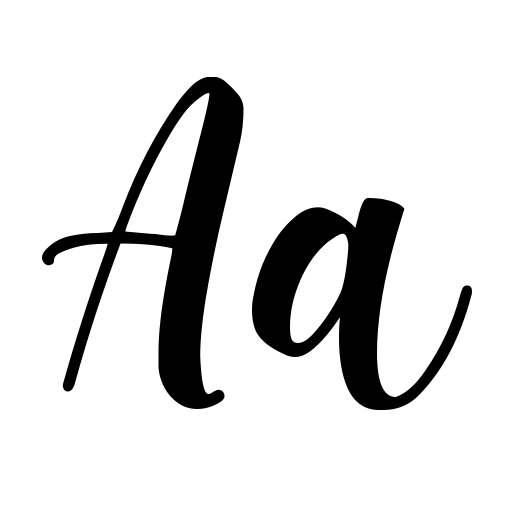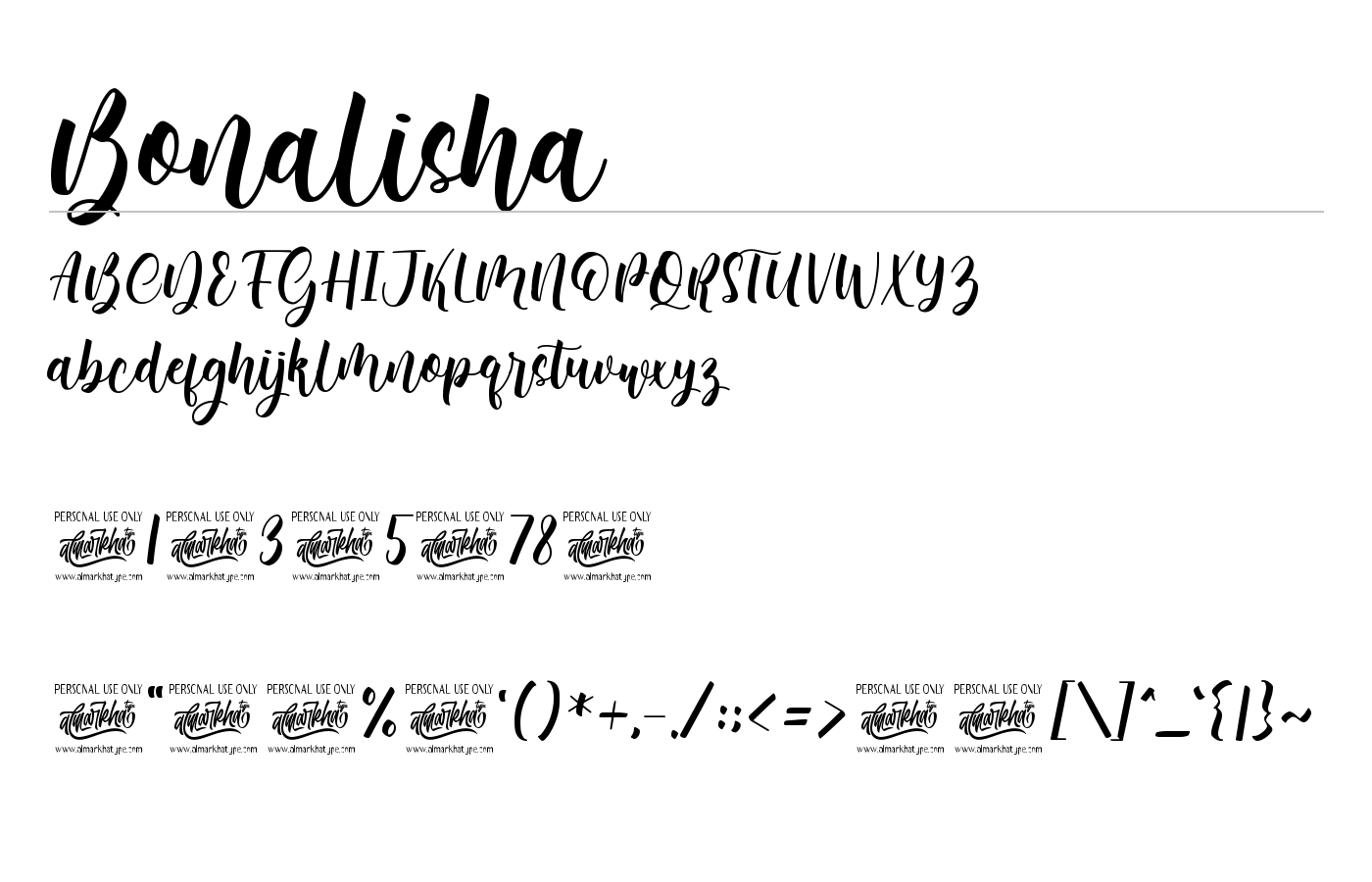
Bonalisha is a stylish script font with smooth, flowing strokes and a friendly, modern feel. Its elegant yet playful design, featuring tall, slightly condensed letterforms and strong contrast between thick and thin lines, makes it perfect for invitations, branding, or any project that needs a personal, handcrafted touch. This font works best in headlines, logos, and decorative text where charm and readability go hand in hand.
Bonalisha Font
About Bonalisha Font